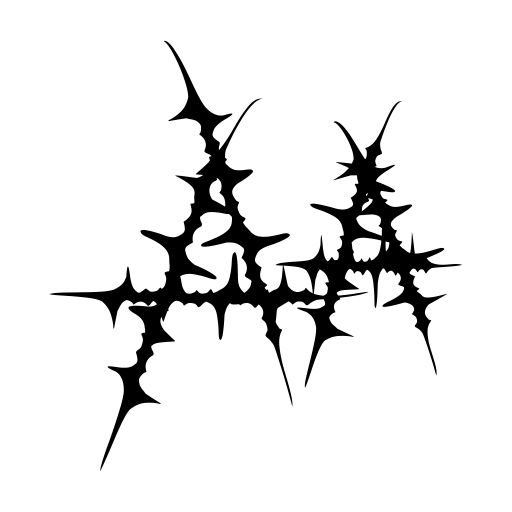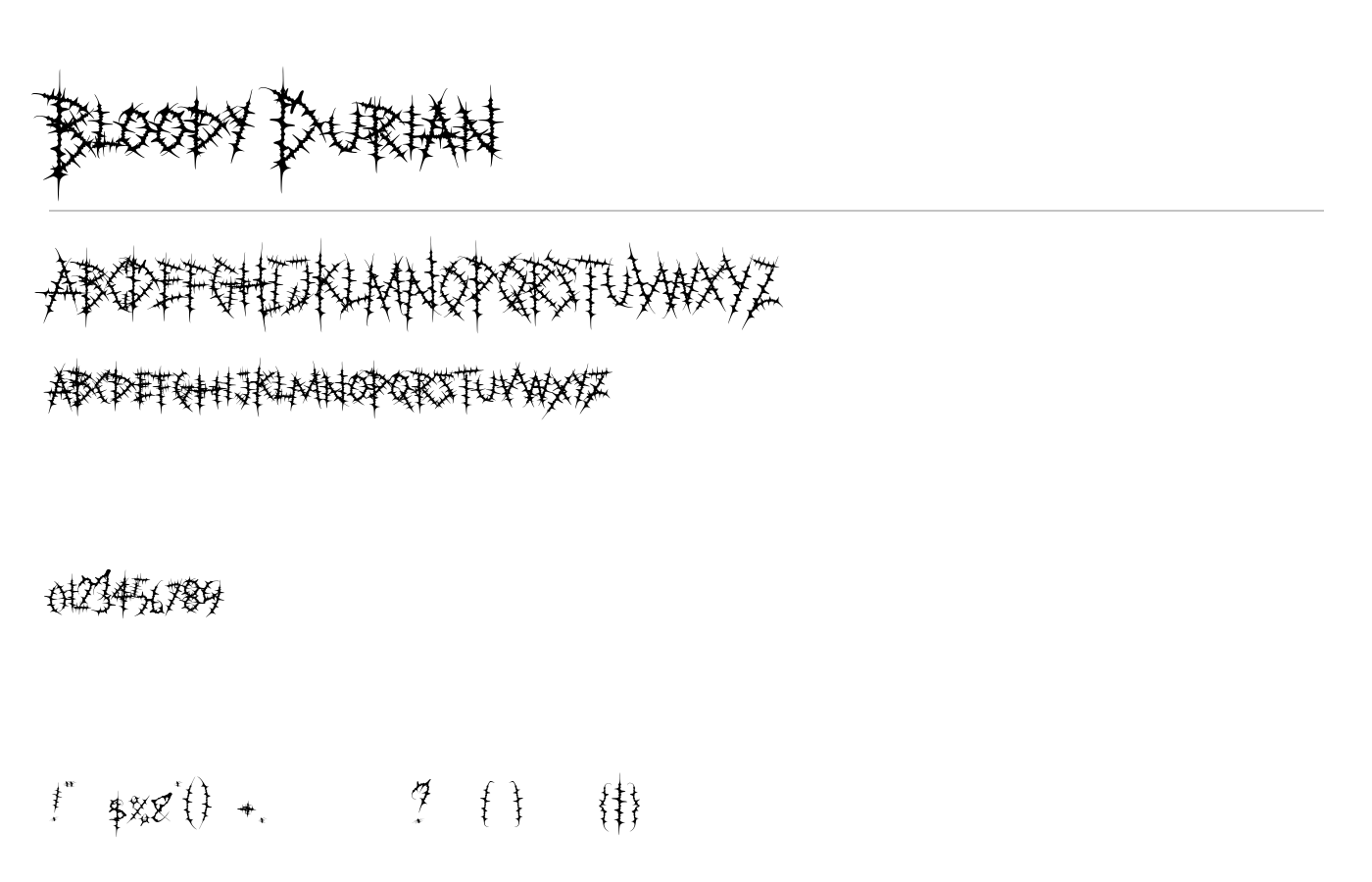
Bloody Durian is a highly decorative and edgy display font, characterized by sharp, thorn-like strokes that create a spiky, fragmented appearance. Its narrow, irregular letterforms evoke a dark, aggressive, and rebellious vibe, making it ideal for horror-themed designs, alternative music branding, or any project seeking a bold, unsettling impact. This font works best in large sizes for eye-catching posters, logos, or headlines where its unique texture and dramatic style can truly stand out.
Bloody Durian Font
About Bloody Durian Font